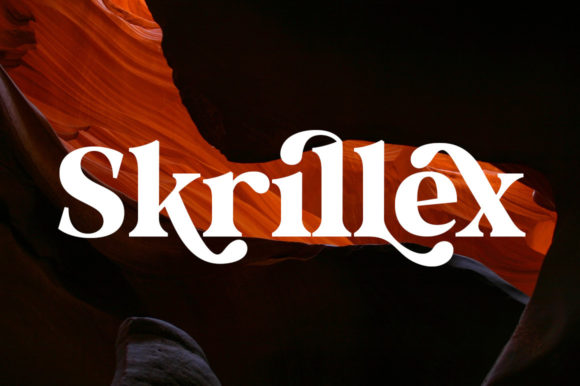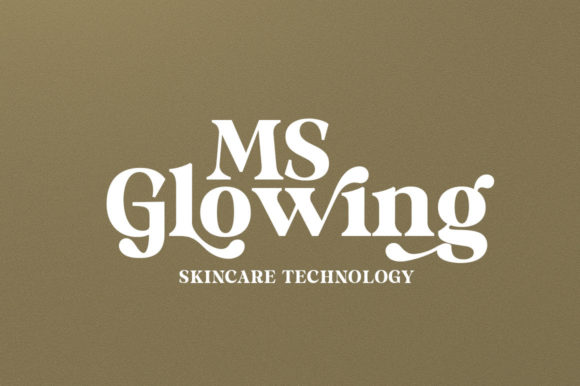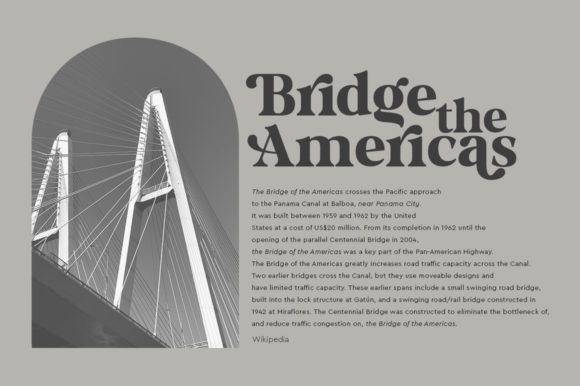
Milk and Honey Font
Milk and Honey is a bold, trendy and thick lettered serif font. This font is PUA encoded which means you can access all of the glyphs and swashes with ease!
Fall in love with its incredibly versatile style and use it to create spectacular designs!